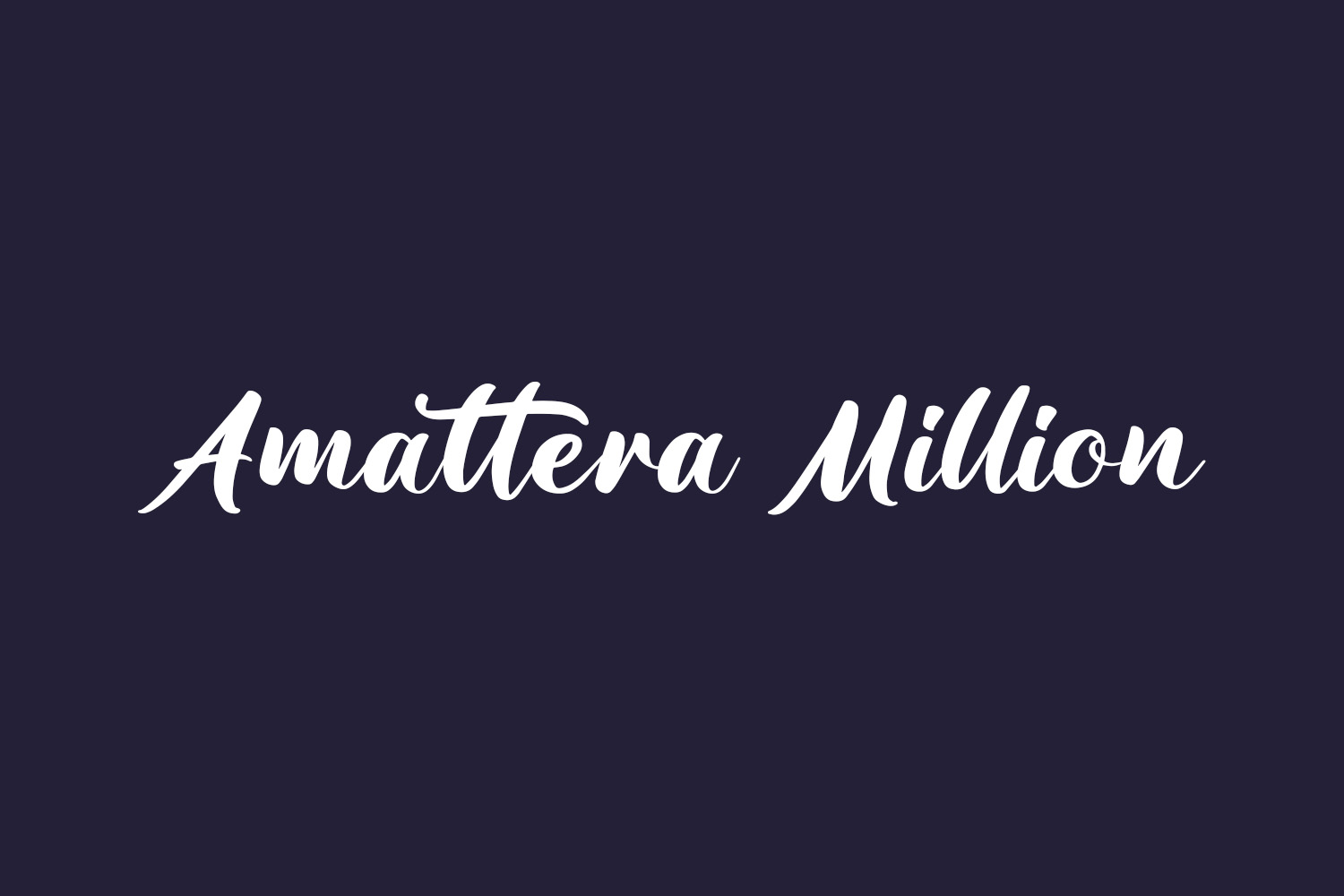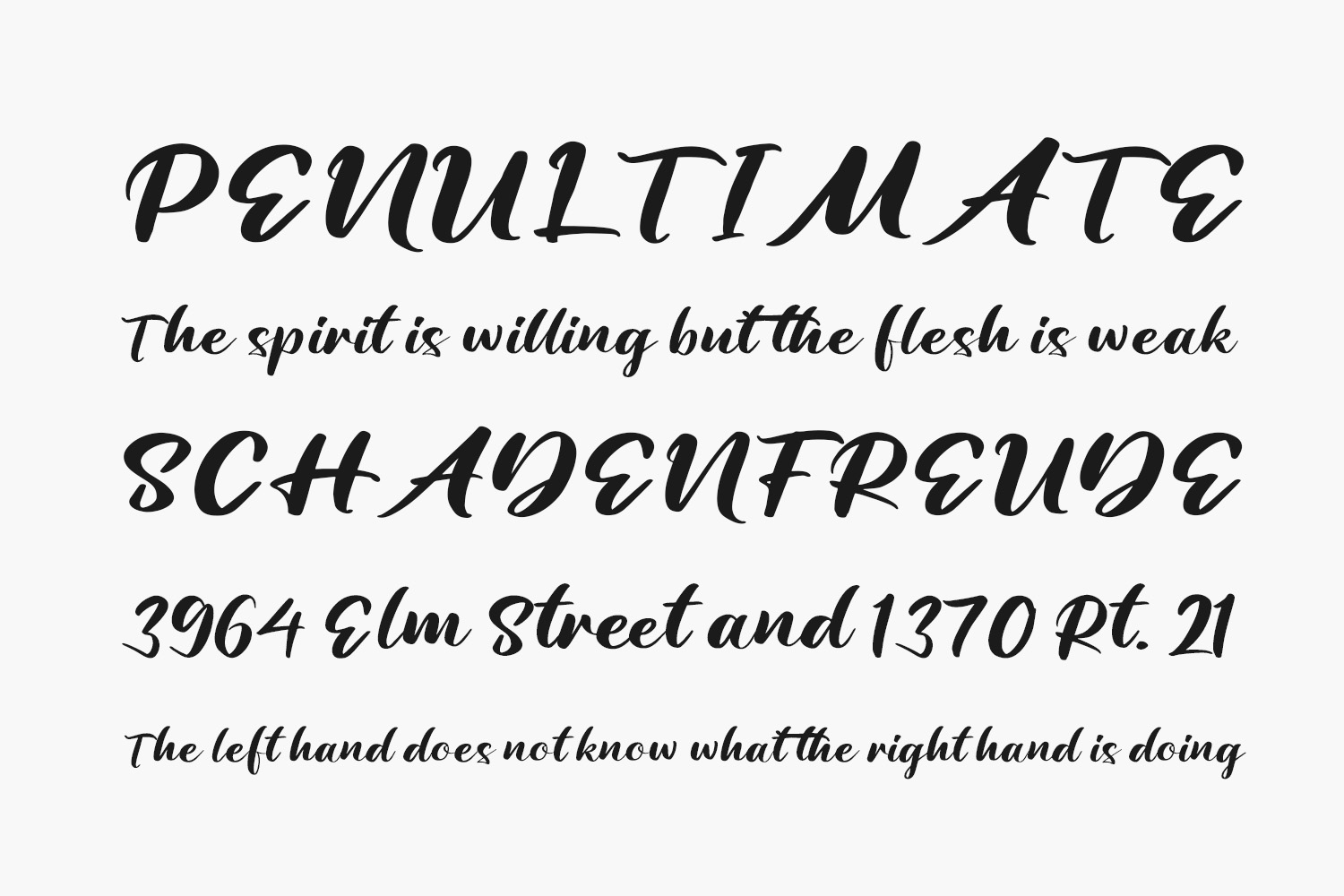
Amattera Million Free Font Family is a lovely and delicate script font that exudes elegance and class. This font was particularly crafted for those who need a beautiful and refreshing look to their designs. Amattera Million Free Font Family was designed by Perspectype Studio and is free for personal use only. Please purchase the full version for commercial use.
Amattera Million Regular The quick brown fox jumps over the lazy dog
Amattera Million Italic The quick brown fox jumps over the lazy dog